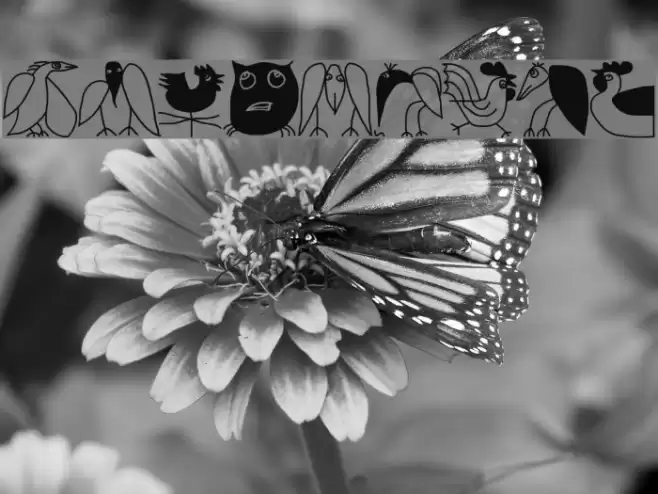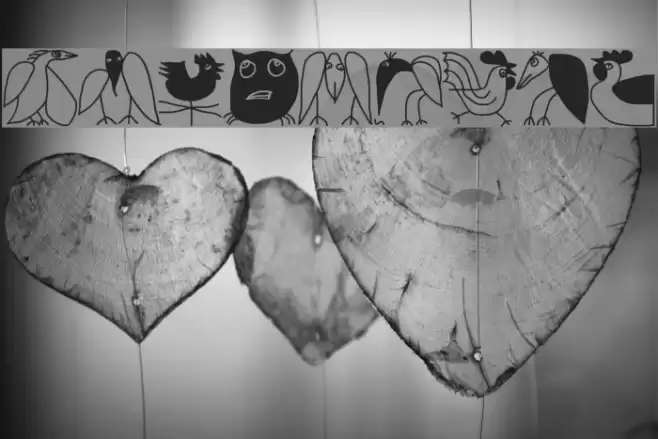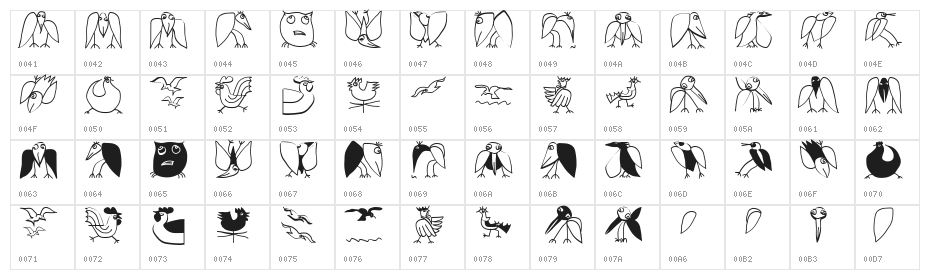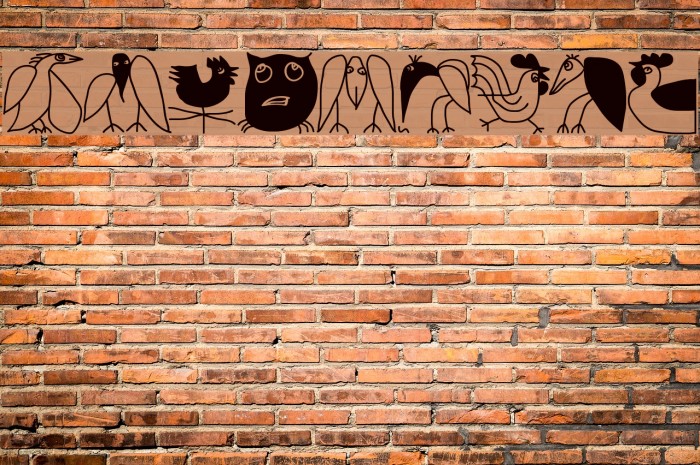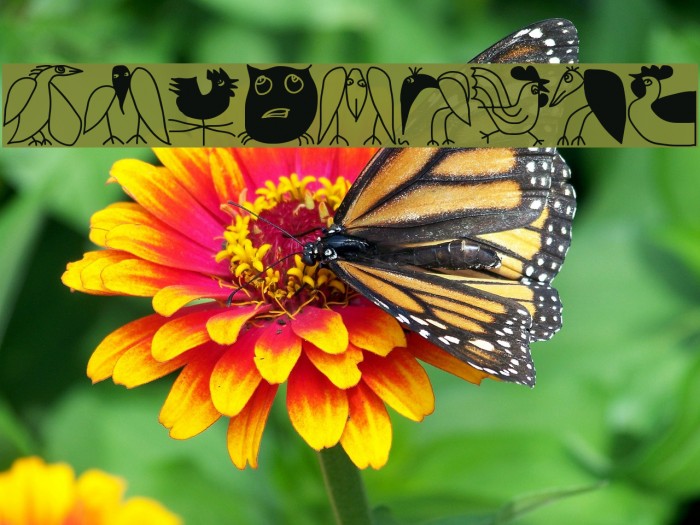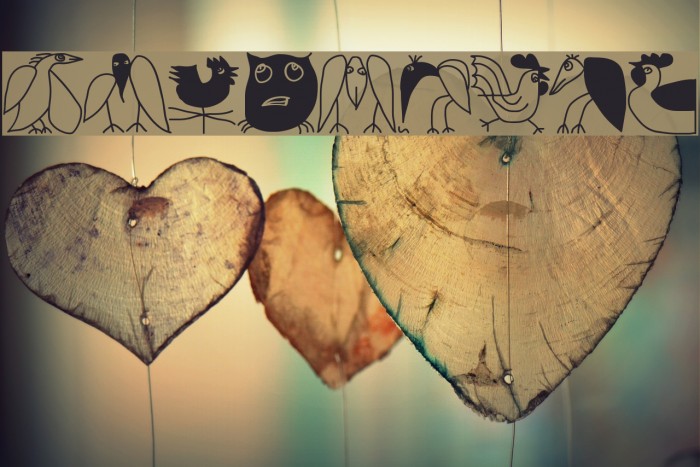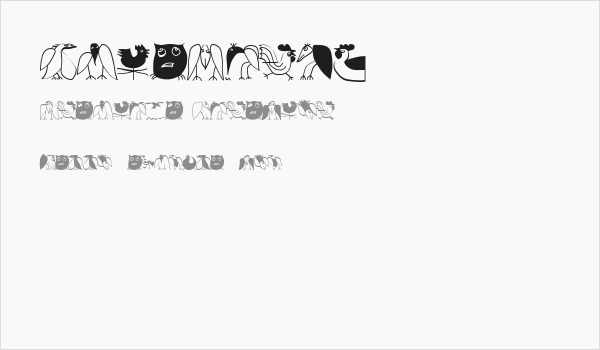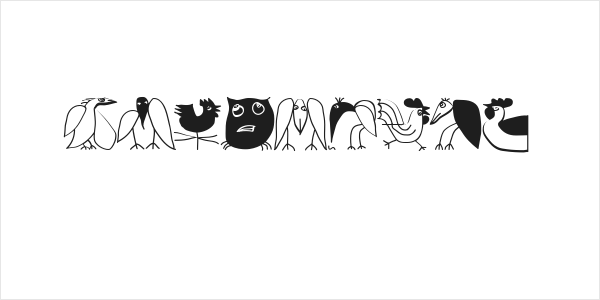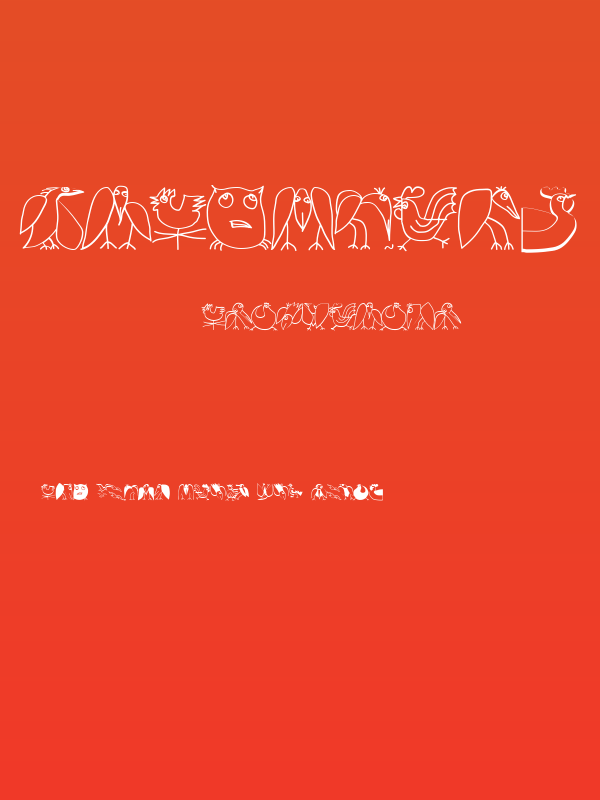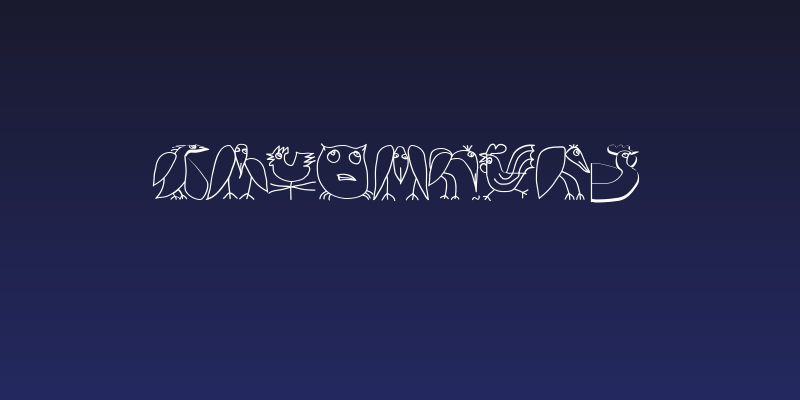
LateBirds Font
LateBirds Description
This is a decorative font featuring whimsical bird illustrations in place of traditional alphanumeric characters. Each character is represented by a unique bird design, showcasing a variety of styles from simple line drawings to more detailed silhouettes. The playful and artistic nature of the font makes it ideal for creative projects. The characters are evenly spaced, maintaining a consistent visual flow. The font's distinctive style is both eye-catching and imaginative, making it suitable for projects that require a touch of creativity and fun.
A decorative font with whimsical bird illustrations replacing standard characters from Uncategorized fonts.
- Proposed Projects: Ideal for children's books, greeting cards, creative posters, and playful branding.
- Use Case: Logos, Headlines, Creative projects